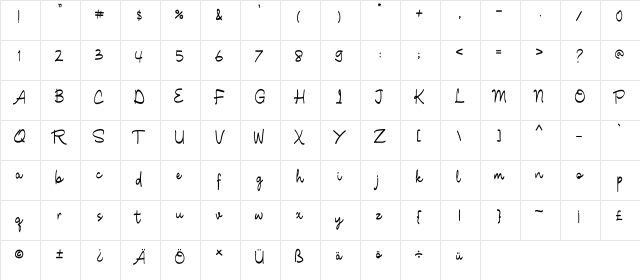
Shenttica Regular
Design Context for Shenttica Typeface
Shenttica is a composed and adaptable typeface that performs quietly and consistently across a wide range of design contexts.